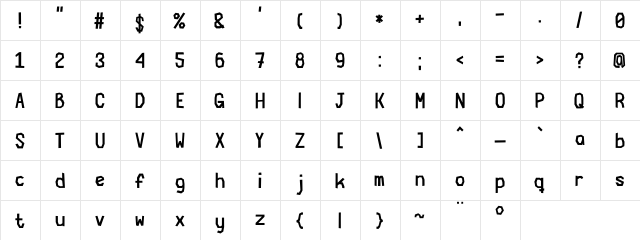
Cardboard-Cutout Cutout
| Style | Cutout |
Design Context for Cardboard-Cutout Typeface
Cardboard-Cutout is a composed and adaptable typeface that performs quietly and consistently across a wide range of design contexts.